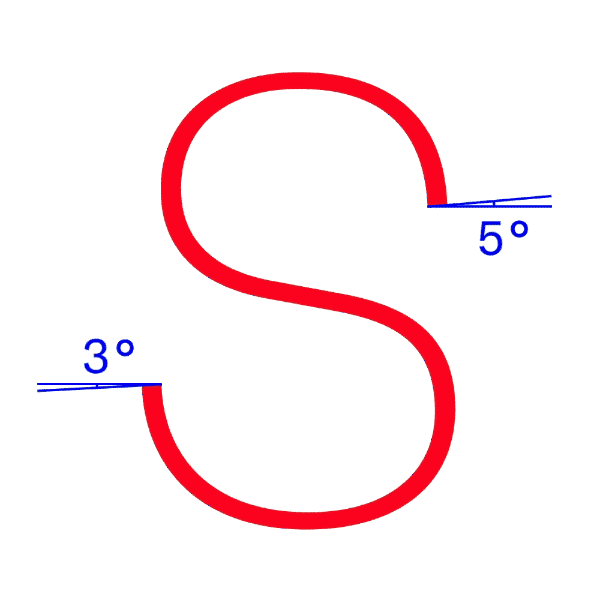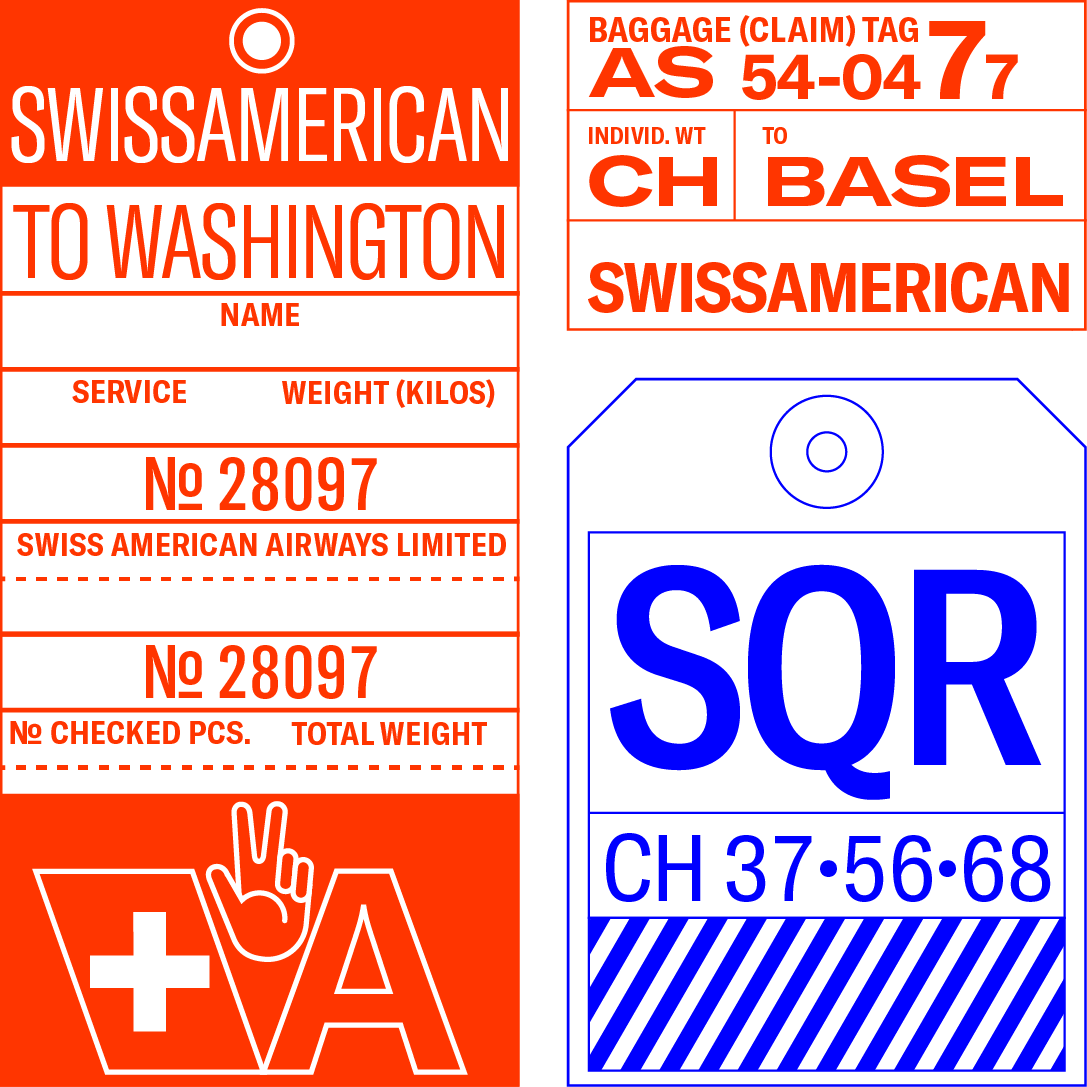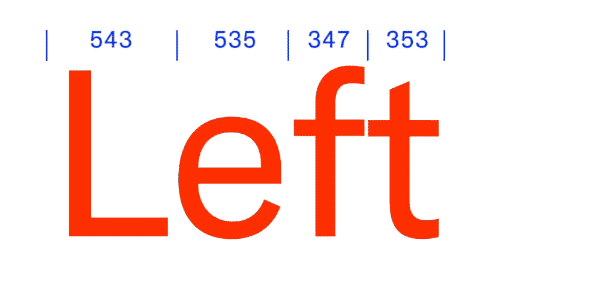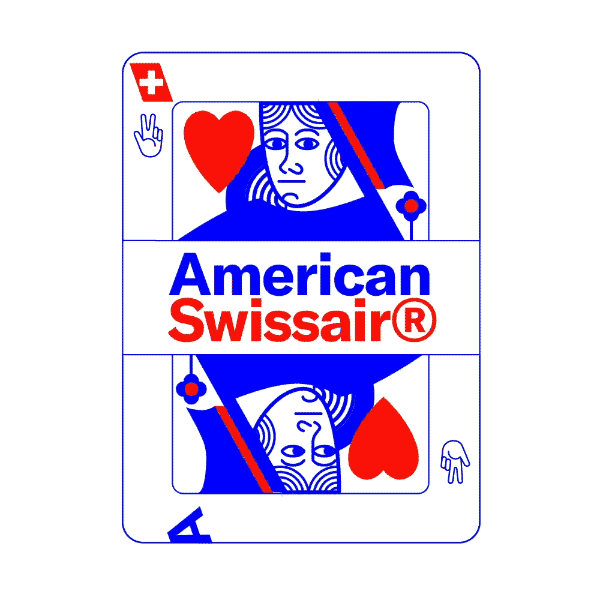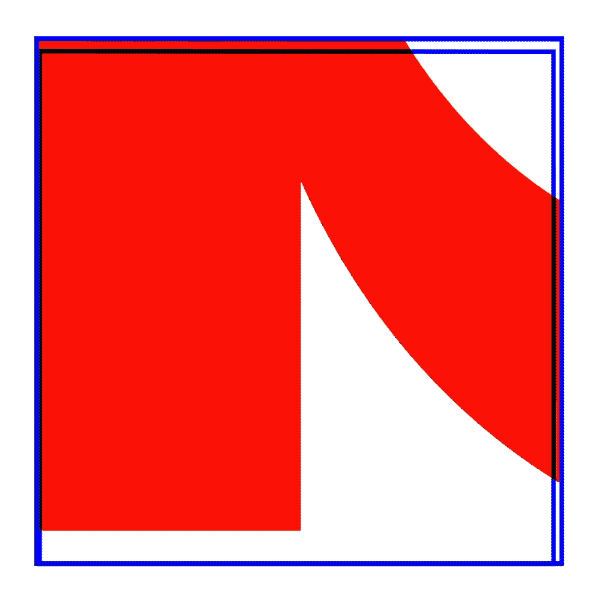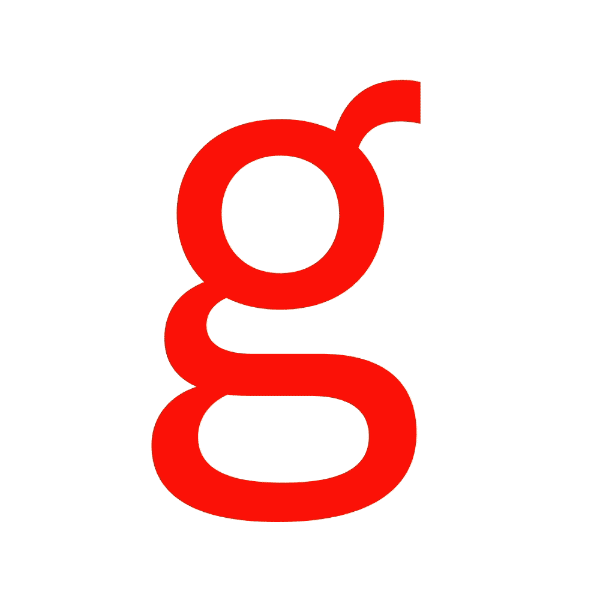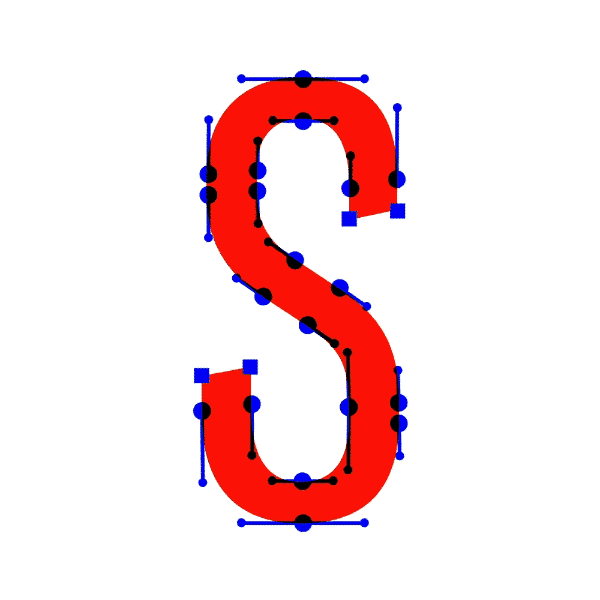
GT America builds a bridge between the American Gothic and European Grotesque typeface genres. It combines design features from both traditions and unites them in a contemporary family. The versatile system consists of eighty-four styles across six widths and seven weights. Exclusively available at Grilli Type.